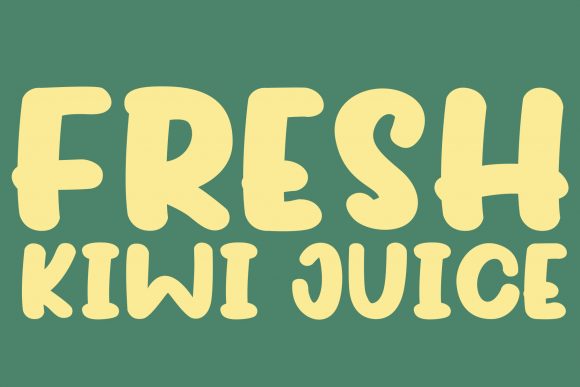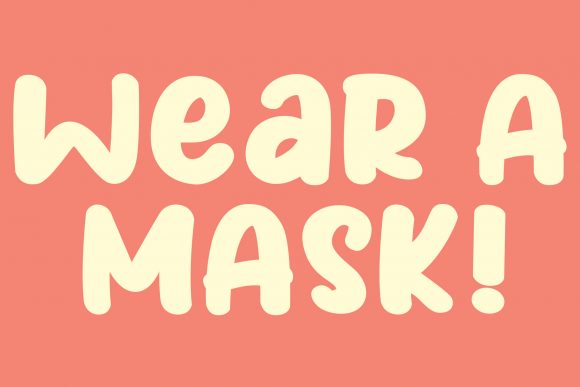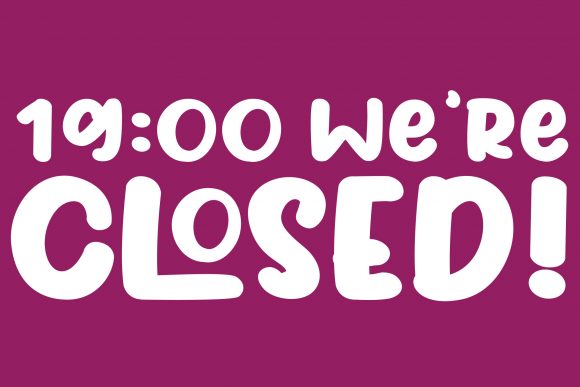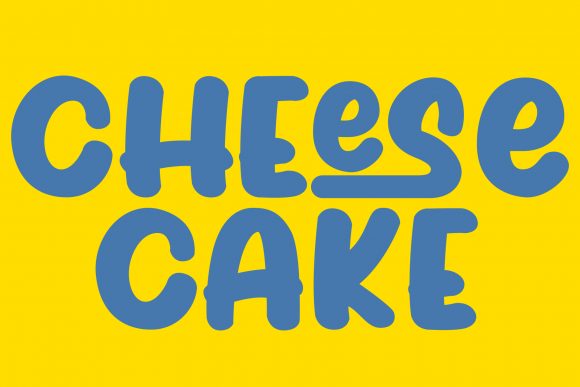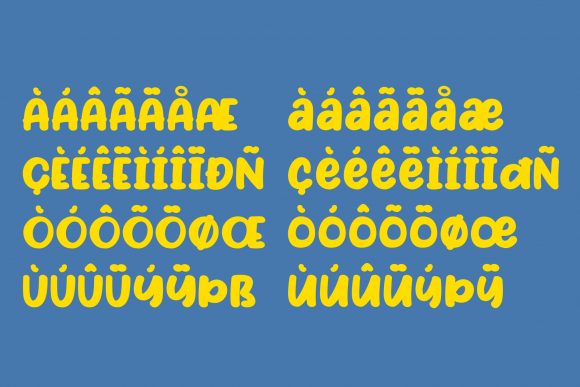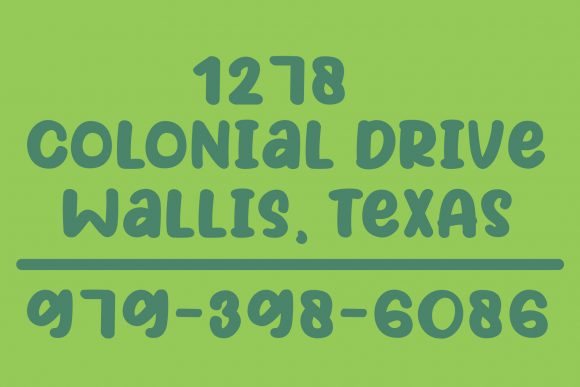
Introduction to Orange Leaves Font
Do you remember that moment when you stumbled upon the perfect font for your creative project? The one that made your design pop, and you couldn’t wait to share it with the world? For designers, finding the right font can be a game-changer, and that’s exactly what the Orange Leaves Font offers.
With its cool, thick lettered, and vintage styled display font, Orange Leaves Font is a treasure trove of design possibilities. Whether you’re creating a stunning poster, flyer, or print, this font is sure to make a lasting impression. Its high quality and versatility make it an invaluable resource for designers, allowing them to explore new ideas and bring their creative vision to life.
What sets Orange Leaves Font apart is its unique style, which can be used in a variety of design contexts, from modern to vintage-inspired projects. Plus, with its transparent background, you can easily overlay it with images or textures, giving your design an extra layer of depth and interest. And the best part? It’s available for free download, making it an accessible design resource for creatives of all levels.
Key Features of Orange Leaves Font
- Unique and elegant design, perfect for adding a touch of sophistication to any project
Honest Review: Orange Leaves Font
I recently stumbled upon the Orange Leaves Font and was excited to give it a try. As a designer, I’m always on the lookout for high-quality design resources that can elevate my creative projects. In this review, I’ll share my honest thoughts on this font.
- ✨ High quality design: The Orange Leaves Font is beautifully crafted, with intricate details that make it perfect for any creative project.
- ✨ Versatile: This font is suitable for various design projects, from logos to graphics, and even web design.
- ⚠️ Limited character set: The Orange Leaves Font has a limited character set, which may not be suitable for complex texts or projects that require a wide range of characters.
- ⚠️ Not ideal for body text: Due to its intricate design, the Orange Leaves Font may not be the best choice for body text, as it can be difficult to read at smaller font sizes.
Overall, I’m impressed with the Orange Leaves Font. While it may have some limitations, its high-quality design and versatility make it a valuable resource for designers. If you’re looking for a unique font for your next creative project, I’d definitely recommend giving it a try.
The Orange Leaves Font is perfect for various design projects, including:
Event promotions and posters
Social media graphics and ads
Blog titles and headings